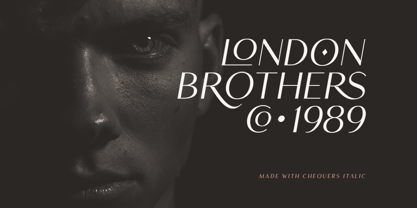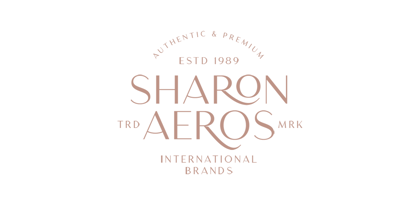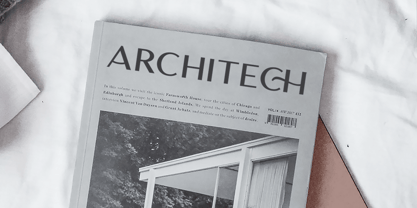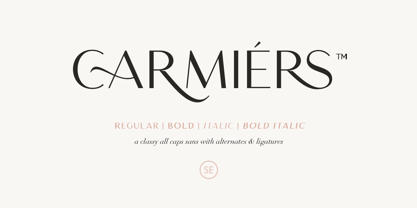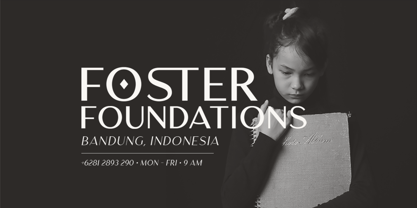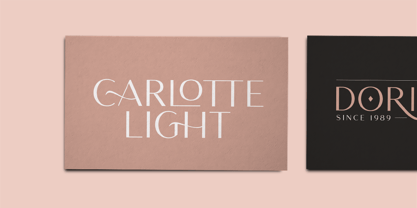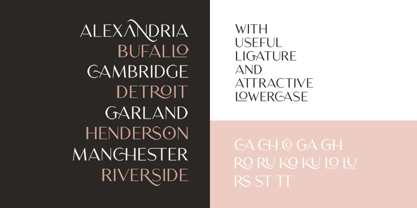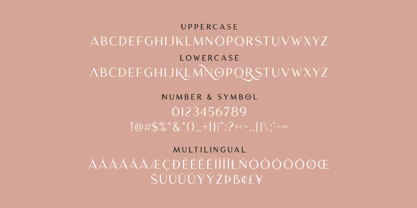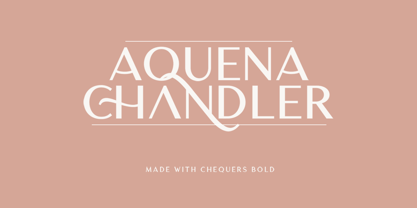
Carmiers
by Sarid Ezra
The Carmiers Font Family was designed by Sarid Ezra and published by Sarid Ezra. Carmiers contains 4 styles and family package options. More about this family
Carmiers is a classic and modern sans serif with a unique uppercase and lowercase. This font contains a bunch of essential ligatures that will make your presentation or logo even more stunning and stand out! With four style that you can use for several purpose! This fonts support Multi Language and already PUA Encoded!
Designers: Sarid Ezra
Foundry: Sarid Ezra